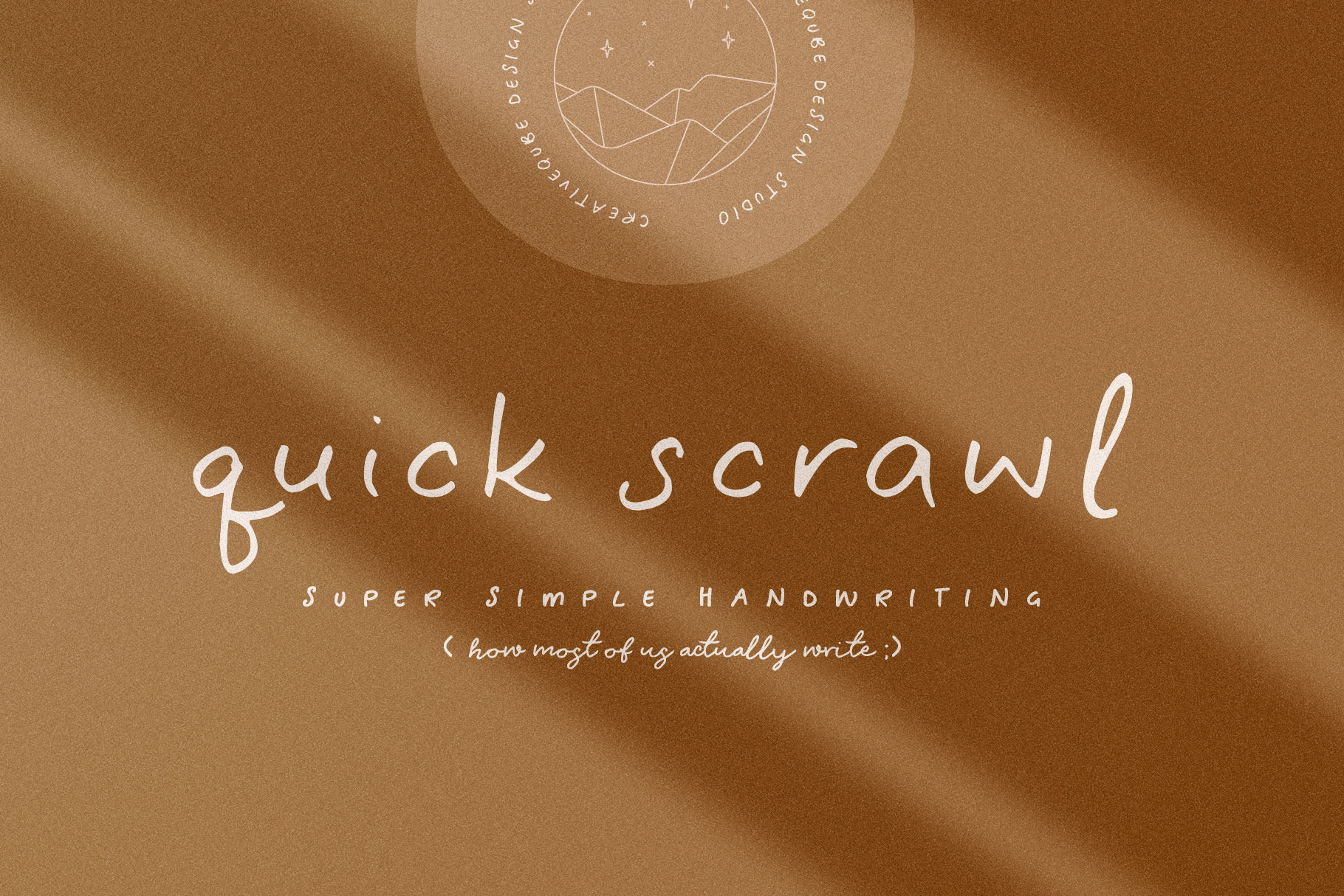
Quick Scrawl Script Font
Introducing Quick Scrawl. A hand written script font with a genuine hand drawn style.
Quick Scrawl comes with a full set of uppercase and lowercase characters, plus a full set of lowercase alternates. It is also in Regular, Italics, Bold and Light.
International Characters included.